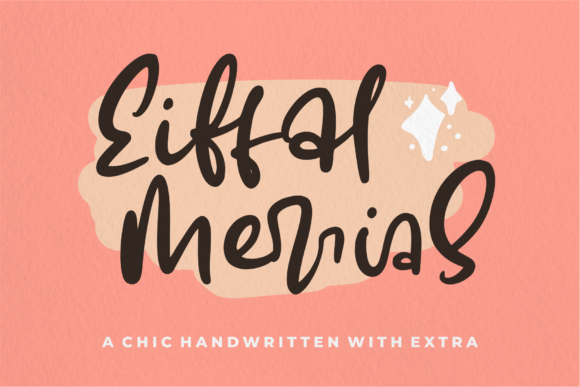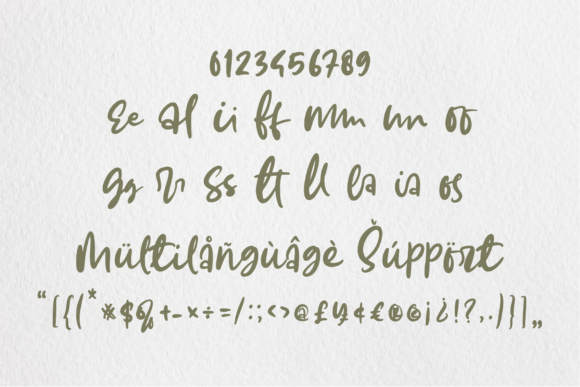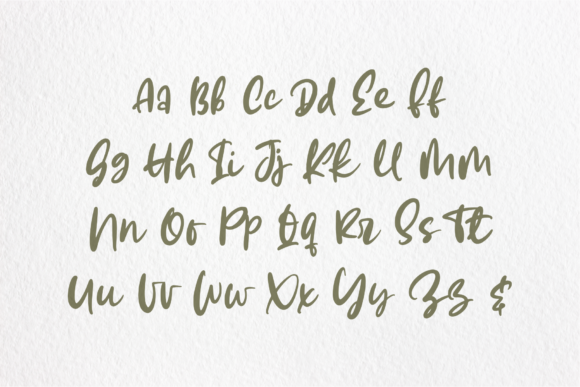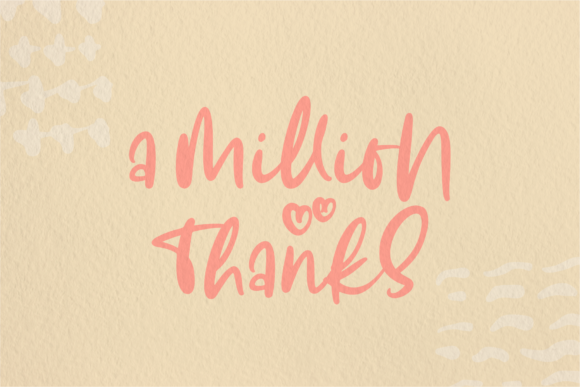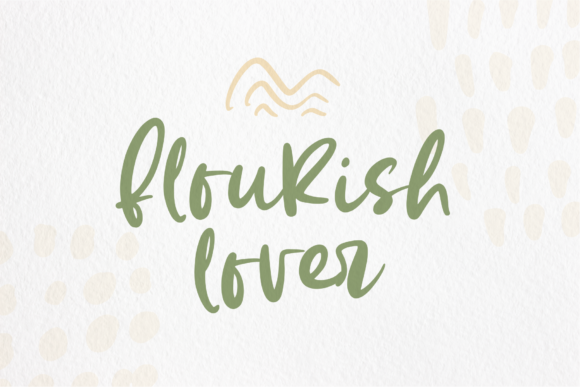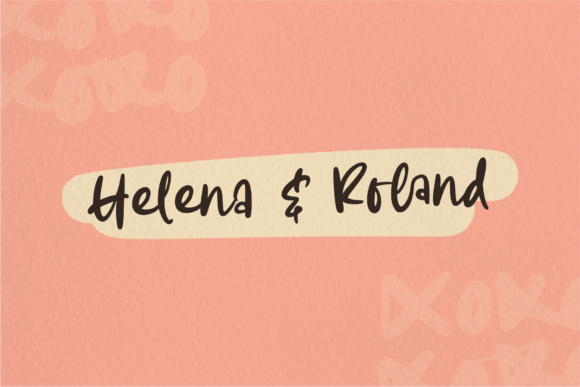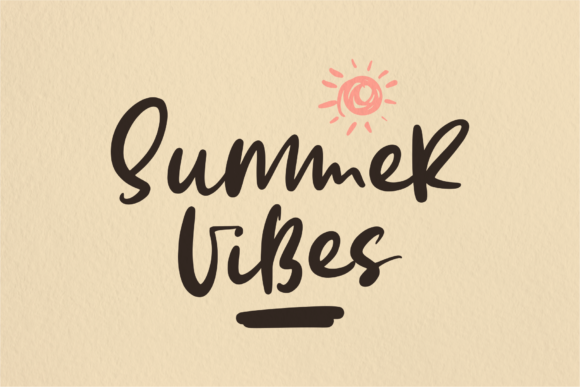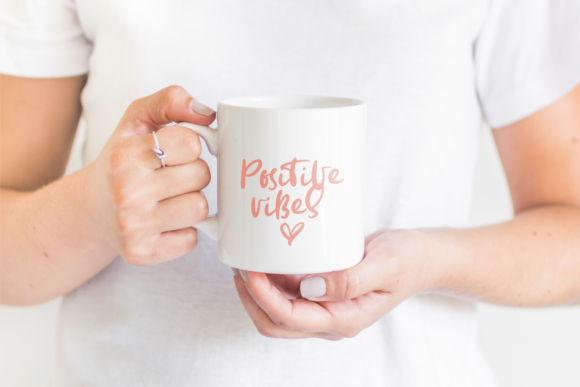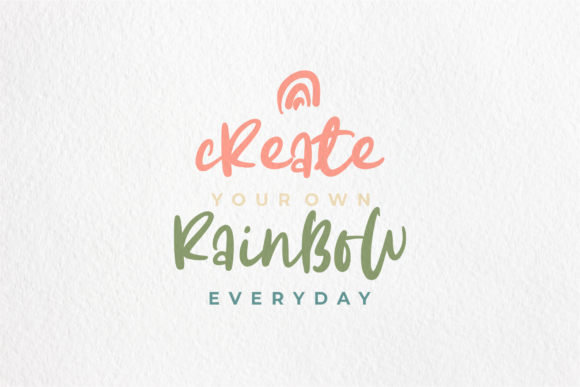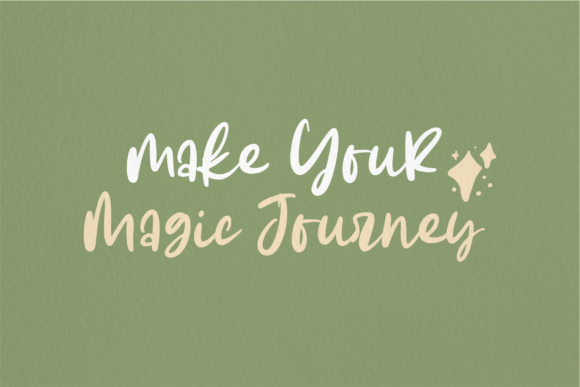
Eiffal Merrias Font
About Eiffal Merrias Font
Eiffal Merrias is a chic handwritten font. It features beautiful extras that will brighten up your projects! Its casual charm makes it appear wonderfully down-to-earth, readable and, ultimately, incredibly versatile. Eiffal Merrias will look outstanding in any context, whether it’s being used on busy backgrounds or as a standalone headline!